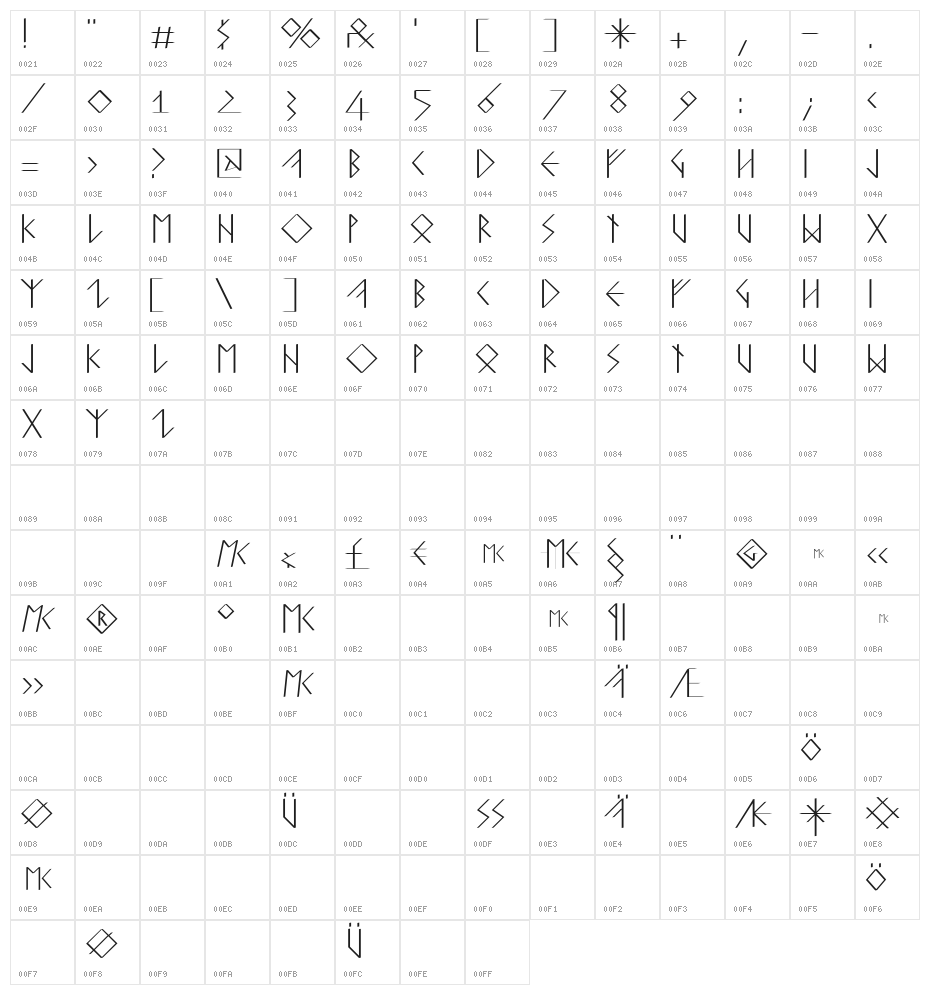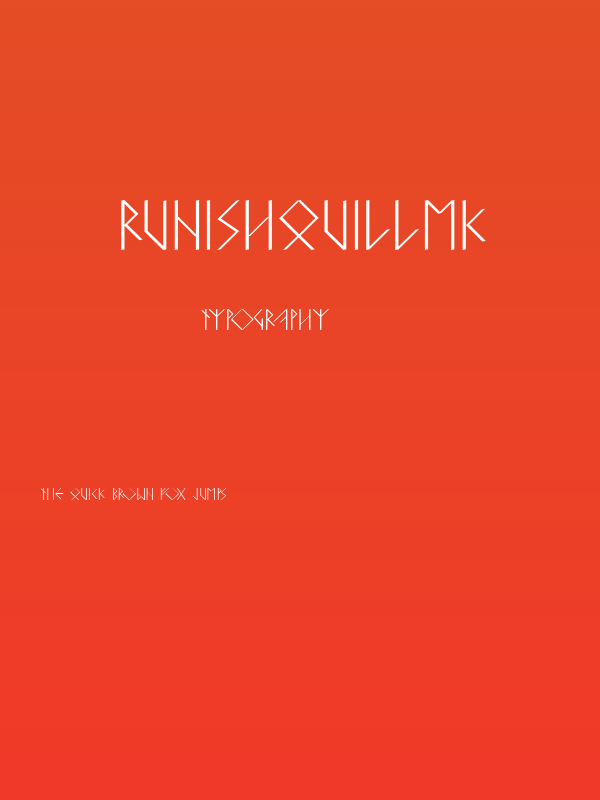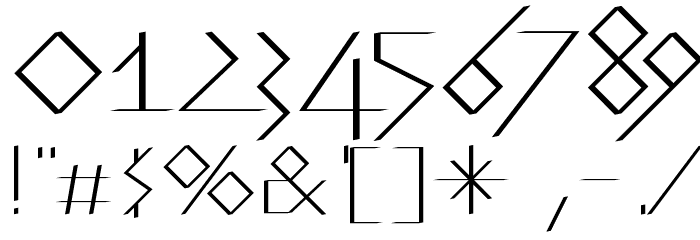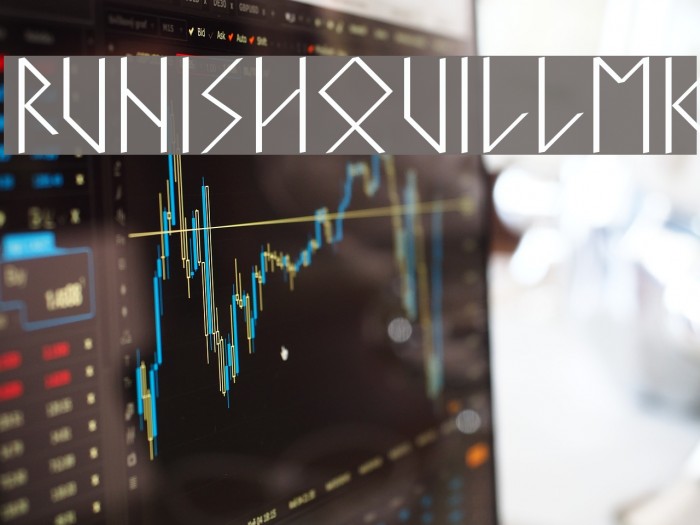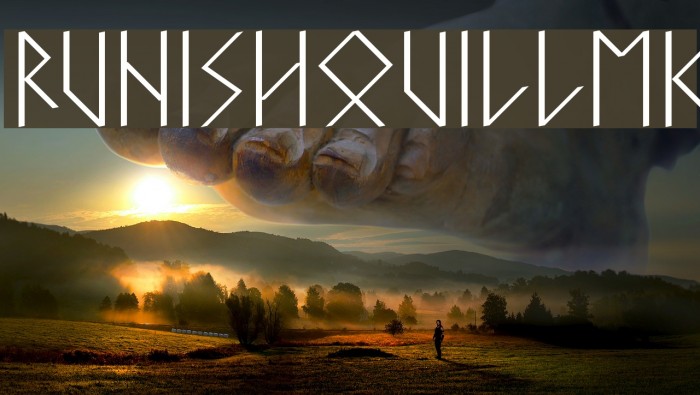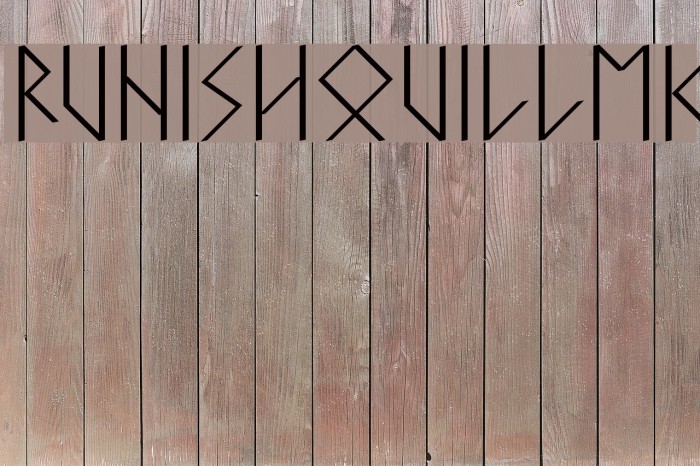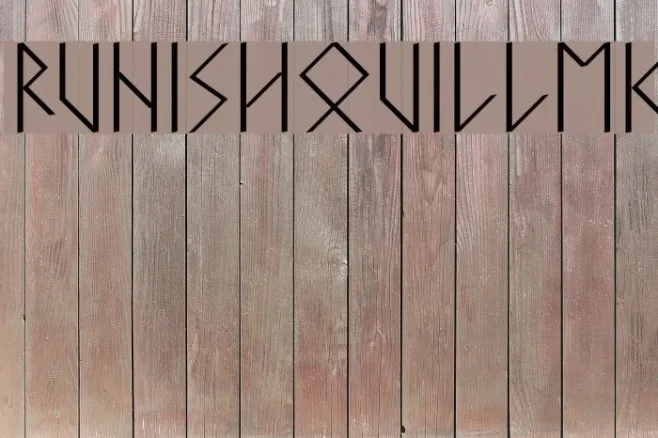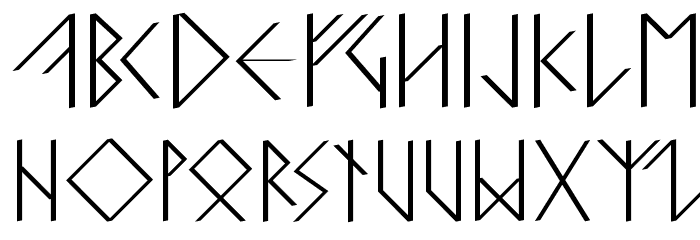
RunishQuillMK Font
RunishQuillMK Description
This font features a unique, angular design reminiscent of ancient runic alphabets. Each character is crafted with sharp, straight lines and geometric shapes, giving it a distinct, historical feel. The uppercase and lowercase letters maintain a consistent style, with a focus on vertical and diagonal strokes that create a sense of movement and energy. The numerals and special characters are designed to match the angular aesthetic, ensuring a cohesive look across all elements. This font's bold and striking appearance makes it ideal for projects that require a touch of antiquity or mysticism.